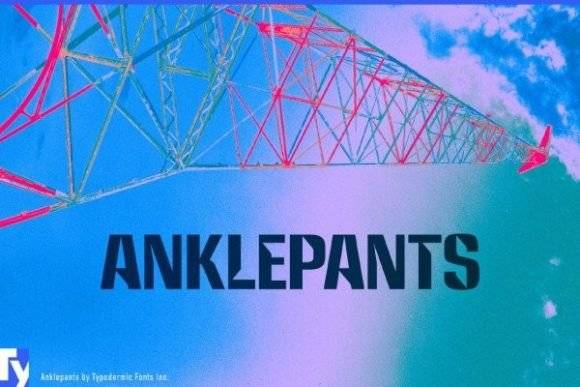
Anklepants Font for Headlines, Posters and Branding Projects
This listing features the Anklepants Font, a headline-ready typeface classified under the font entity category. Designed for display use, it blends bold weight with artistic flair to deliver commanding presence in both print and digital formats.
Perfect for posters, brand kits, packaging, and marketing graphics, Anklepants excels in large-format design where typography must lead. It is ideal for creative professionals seeking a font with strong identity and visual tone. Its striking presence ensures that any text will capture attention and convey messages effectively. Anklepants is particularly useful as an attic font for branding projects, offering versatility across various mediums while maintaining a cohesive aesthetic. With its bold personality, this typeface empowers designers to push the boundaries of their creative visions. Its unique character allows it to serve as an anti font for creative branding, challenging conventional design norms while still delivering high impact. By embracing its unconventional elements, designers can create a distinct visual narrative that stands out in a crowded marketplace. Anklepants not only enhances individuality but also fosters an engaging connection with the audience, making it a must-have for innovative branding solutions.
- Bold event posters and campaign flyers
- Brand headlines, logos, and slogan text
- Packaging titles and signage graphics
- Book covers, album art, and zine layouts
- Custom apparel branding and merch tags
- Unique headline style with strong character
- Ideal for bold, visual-first branding
- Versatile use across platforms and media
- Ready for print, web, and large-format work
| Visual Style | Bold, artistic, display-grade | Standard sans-serif | Minimalist serif |